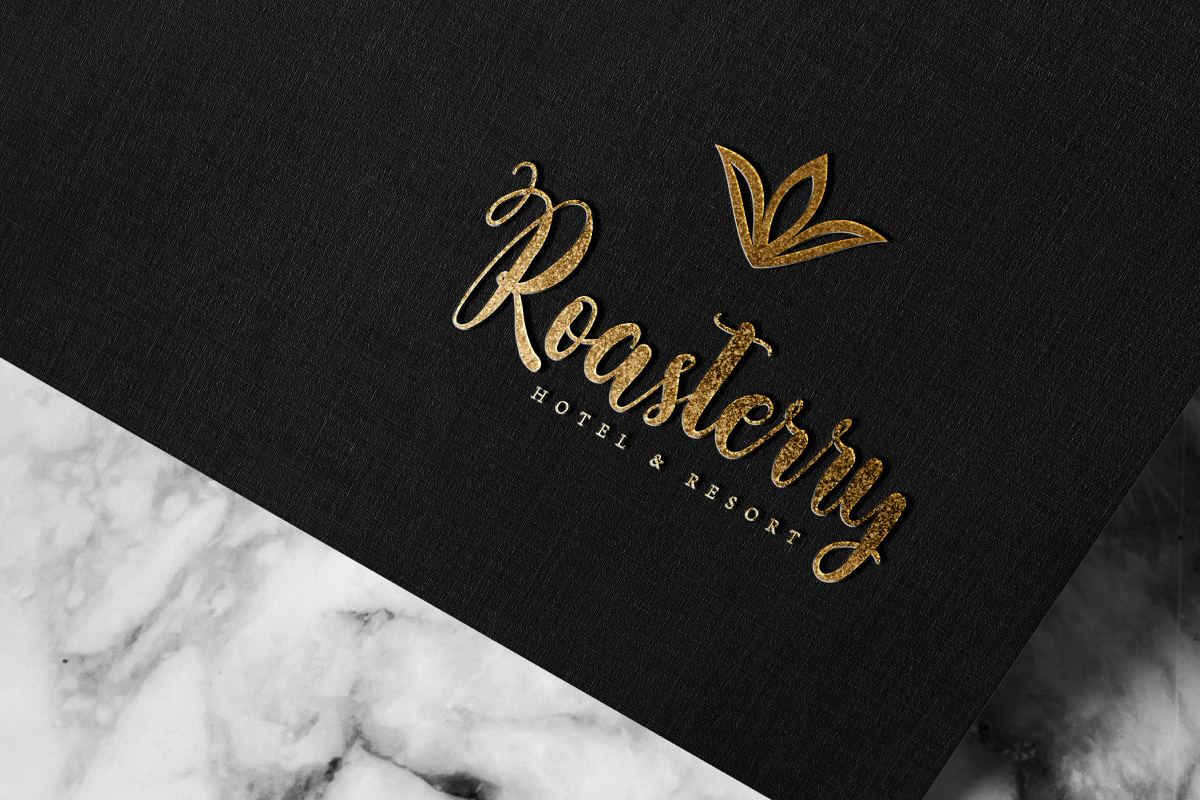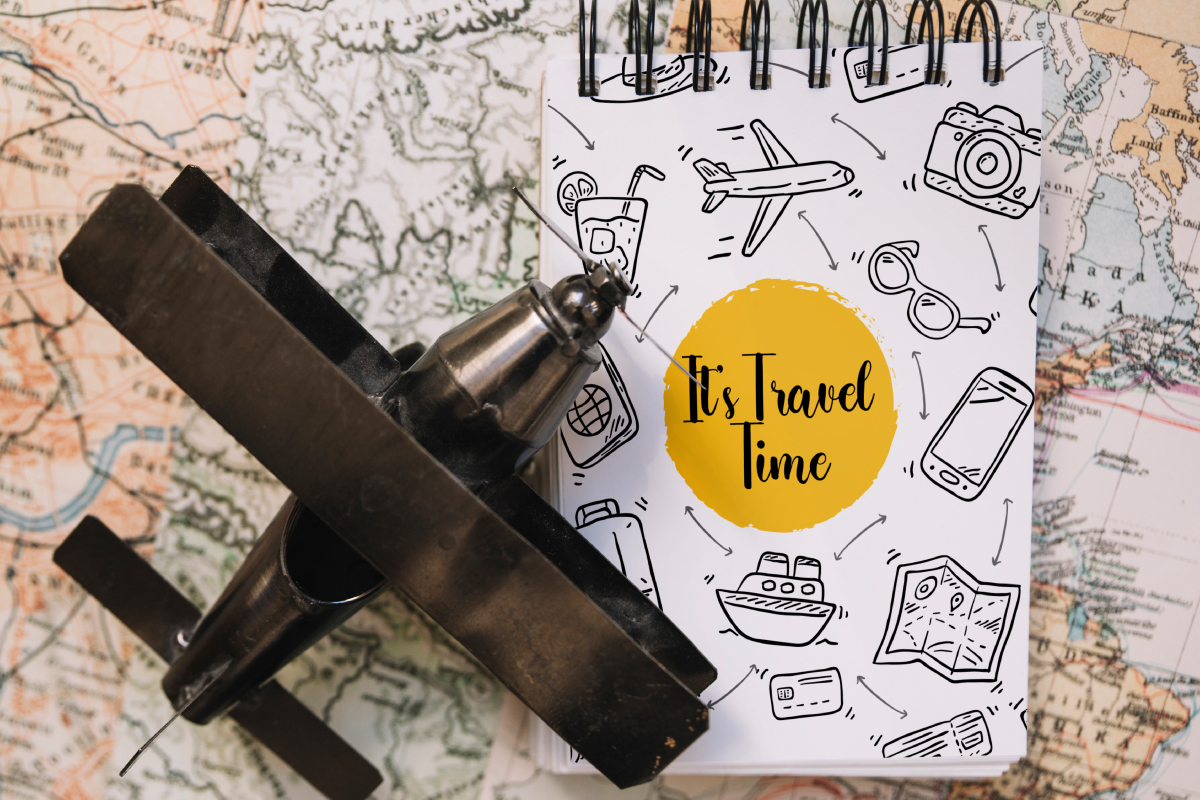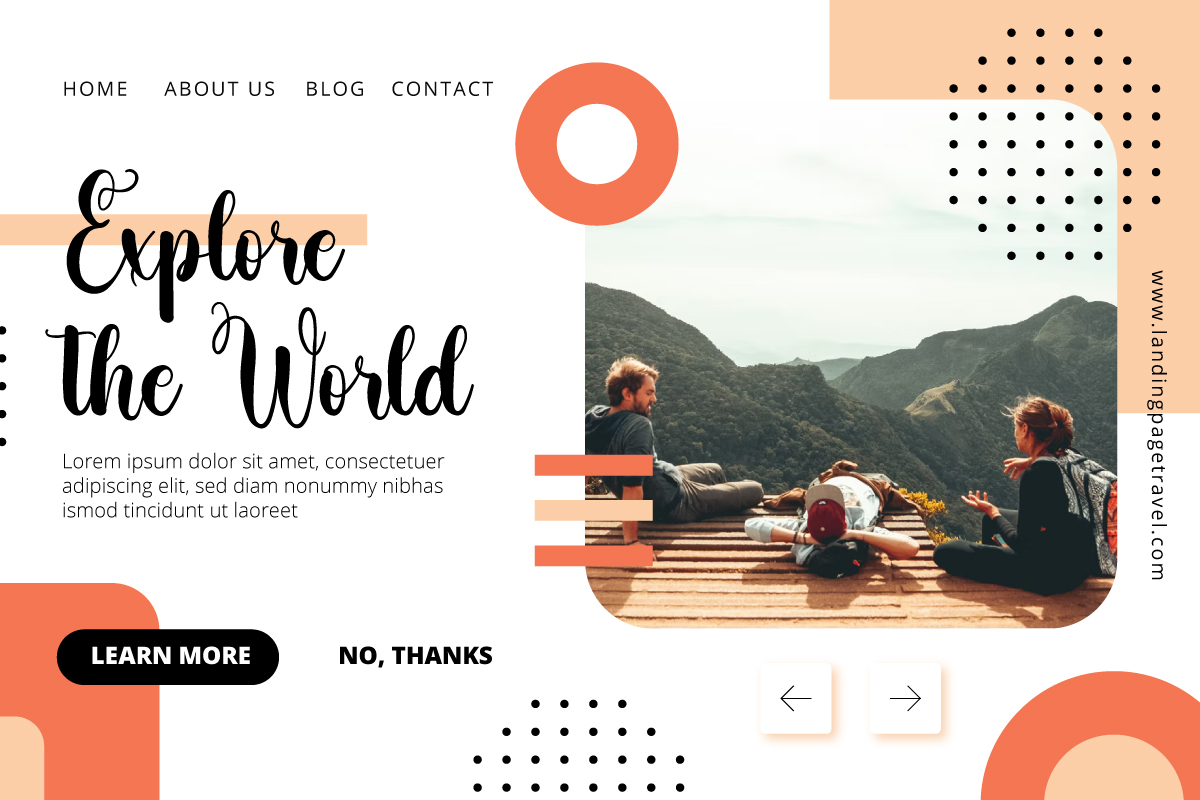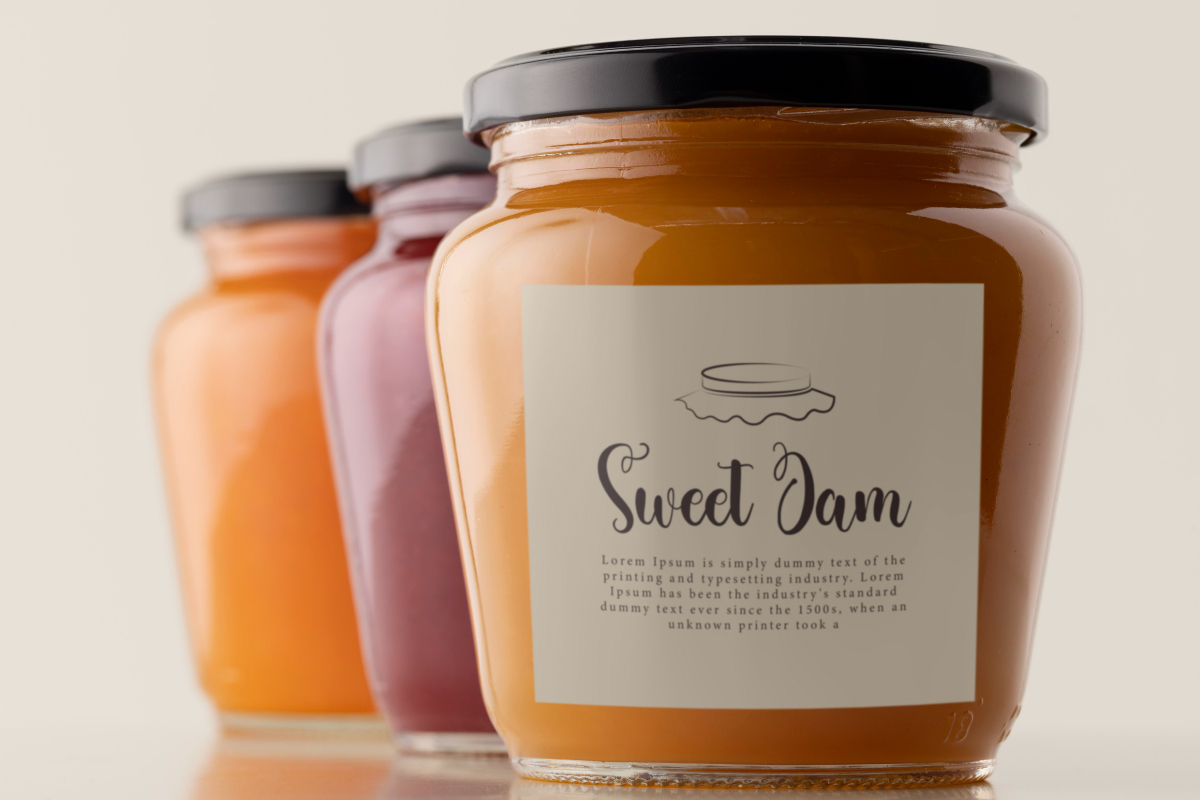
Vacation City Font
Vacation City Script Font is a beautiful script font with calligraphy style. Each uppercase letter in this font has a unique trailing line at the end of the line and is still easy to read. This font has a sweet appearance making it suitable for any industry, such as café, digital, fashion, hotel and resort, photography, restaurant, printing, publishing, spa and salon, travel, and more!